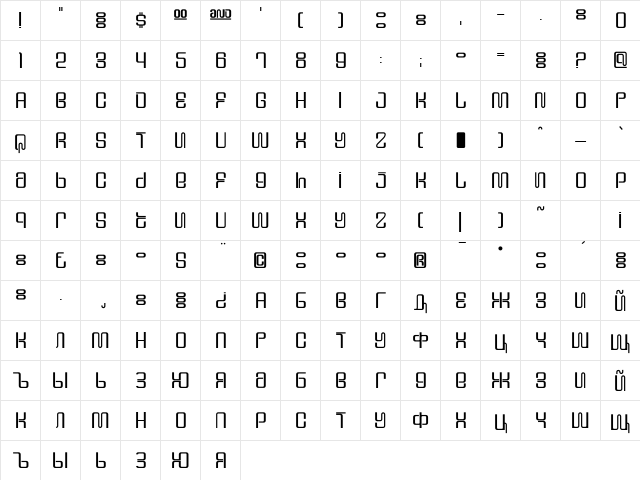
DS Supervixen Cyr Regular Font Preview
DS Supervixen Cyr Regular
DS Supervixen Cyr Regular Font Details
| Designer | Ben (Fontալicious) & Dubina Nikolay (D-Studio) - cyrillic |
Design Context for DS Supervixen Cyr Typeface
DS Supervixen Cyr is a composed and adaptable typeface that performs quietly and consistently across a wide range of design contexts.